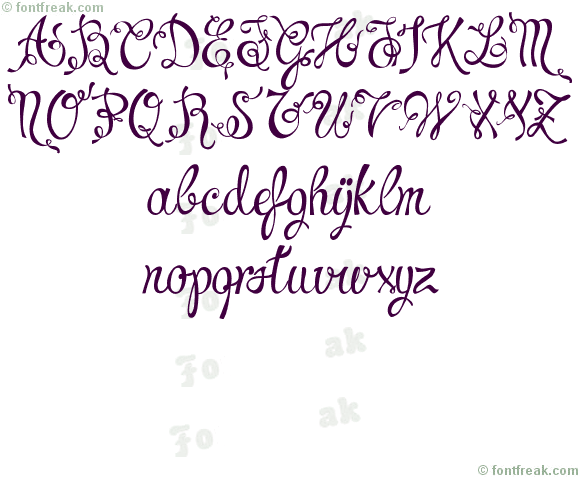
Charming Normal
Charming Normal is a delightful and whimsical typeface that falls into the script category, designed by Fonts and Fashion in 2015. This font exudes a sense of playfulness and elegance, making it perfect for various creative projects. Its stroke weight is light to medium, providing a graceful flow without overwhelming the viewer. The characters exhibit a moderate contrast, enhancing readability while maintaining a charming aesthetic. The spacing is well-balanced, ensuring that the text remains legible even in longer passages. Decorative elements, such as swirls and flourishes, add a unique character to the font, making it visually engaging.
This font is versatile and can be used in a range of applications. For wedding invitations, Charming Normal brings an air of romance and sophistication, drawing attention to the special occasion. It's also a great choice for movie posters, where the playful yet elegant vibe can capture the essence of a lighthearted film. Additionally, restaurant menus benefit from its inviting style, making dishes appear more appealing. Content creators will find it ideal for social media graphics, adding a personal touch to their posts.
What sets the Charming Normal font apart is its ability to combine elegance with a sense of fun, making it a standout choice for those seeking a distinctive typeface. Whether you're designing a heartfelt invitation or a catchy poster, this font offers the perfect balance of charm and sophistication. Don't miss the opportunity to explore the Charming Normal font free download and elevate your creative projects.